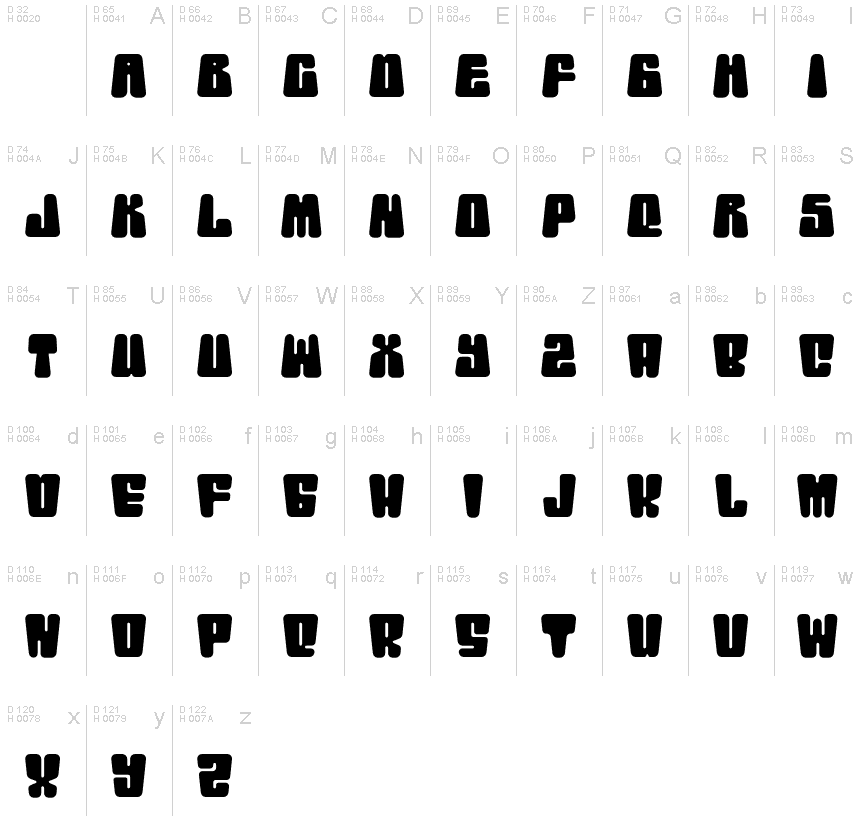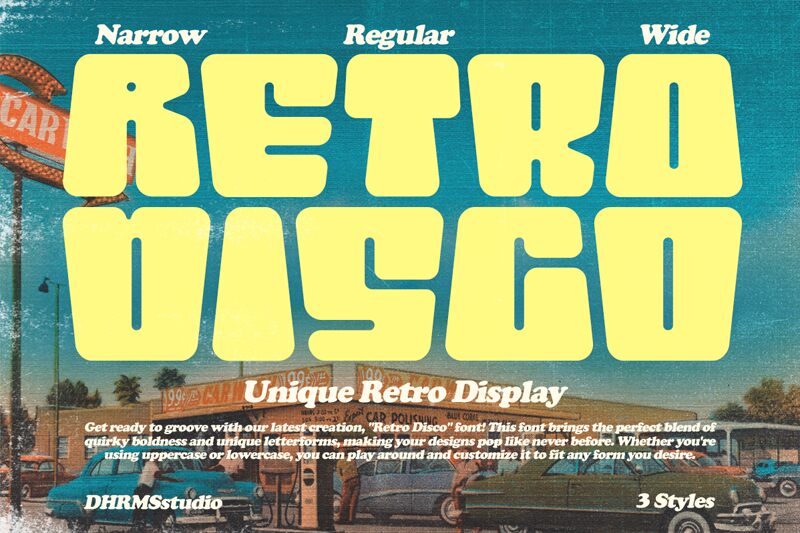
Retro Disco, a groovy display font by Dharmas Studio, brings back the funky vibes of the disco era. With its extra-bold weight, this font is perfect for projects that need a touch of retro flair.
Whether you're designing event posters for a 70s-themed party or creating eye-catching album covers for indie bands, Retro Disco will make your typography dance. Its playful curves and vibrant colors will transport viewers to a world of disco balls and Saturday Night Fever.